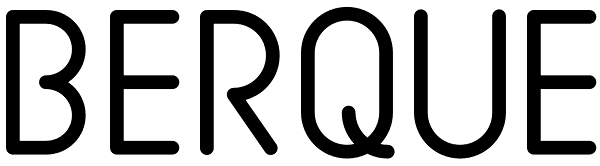
BERQUE
I found the need for a friendly typeface that didn't go over the top. After much searching, I realized nothing fit this description perfectly so I created BERQUE.
BERQUE LIGHT
BERQUE